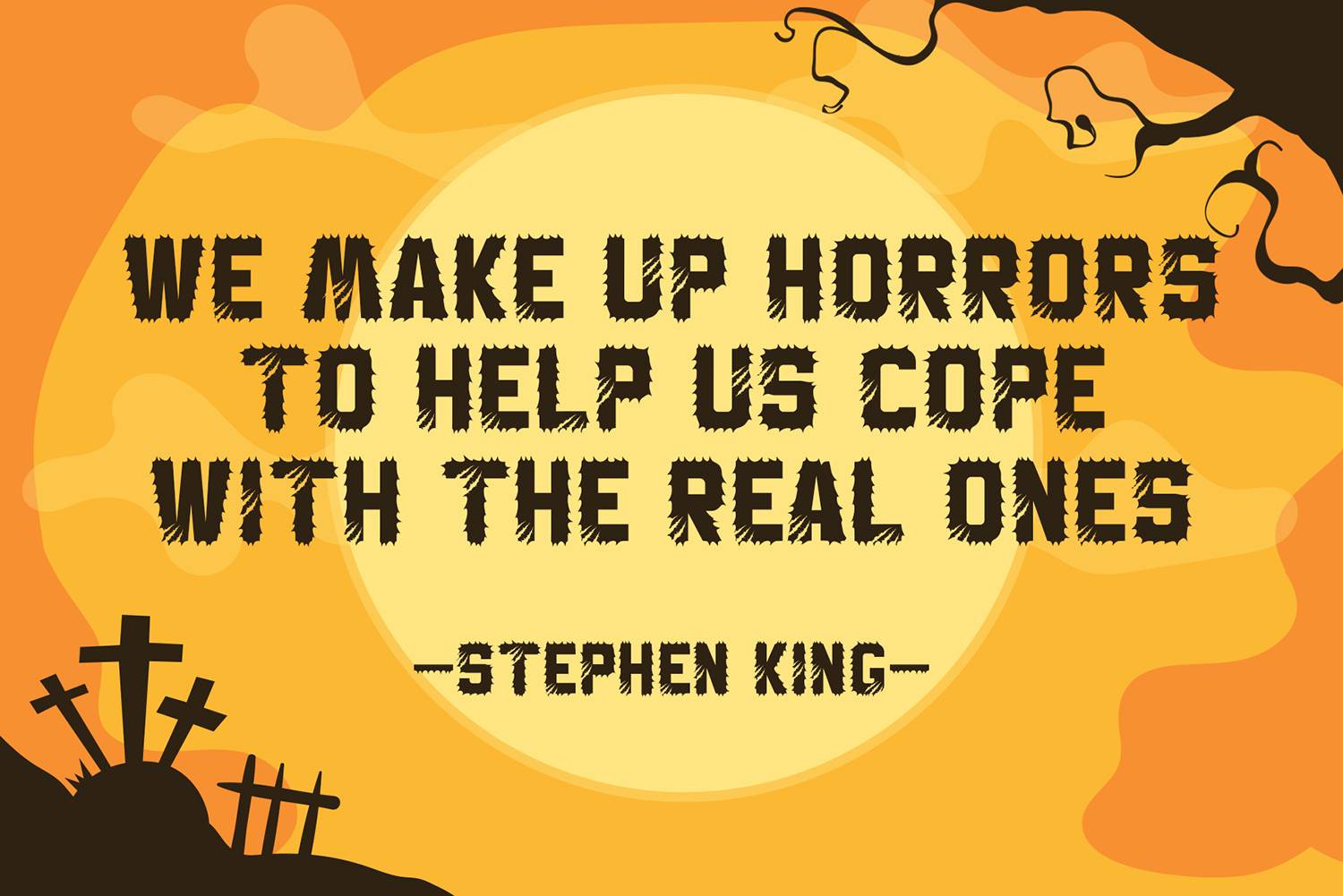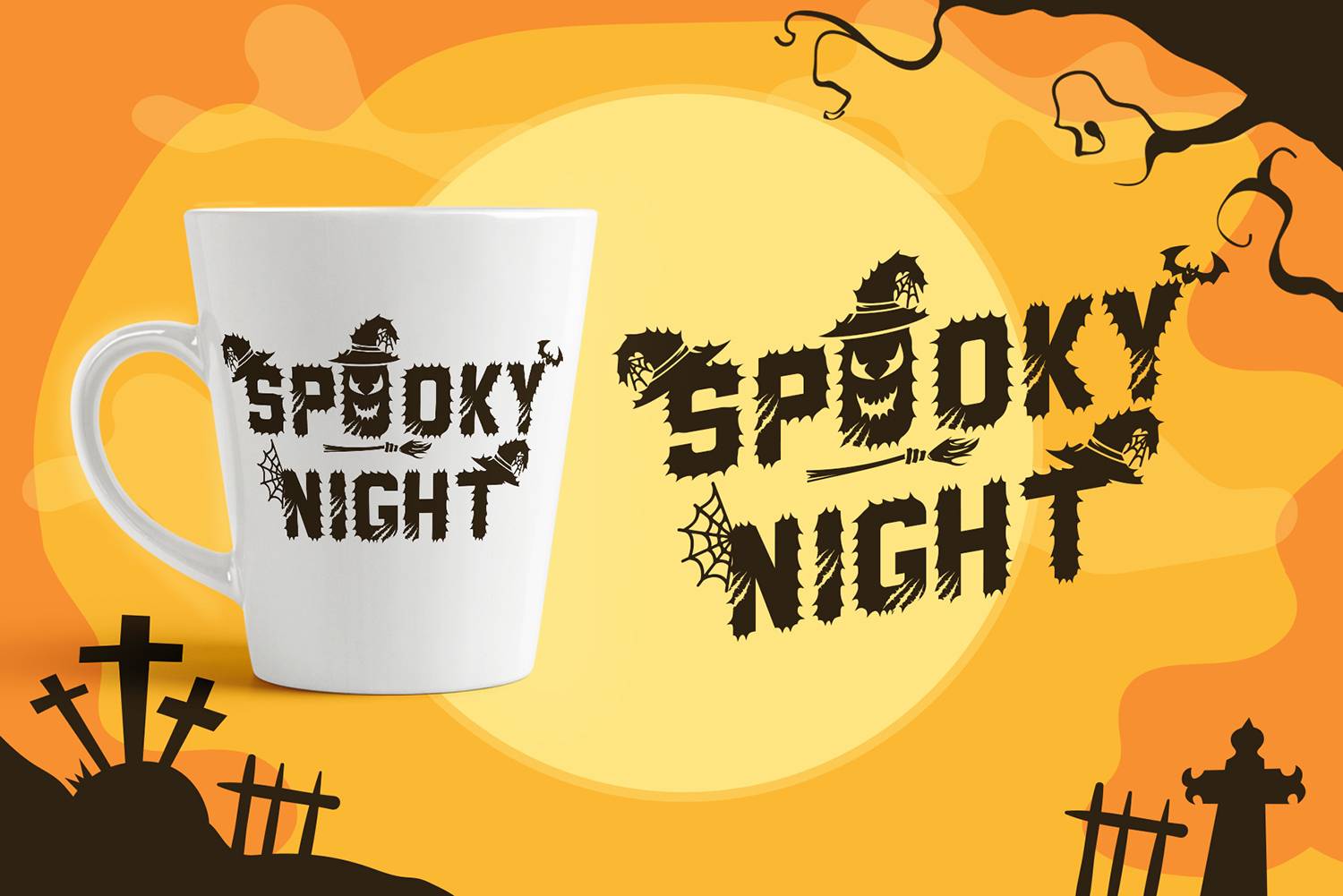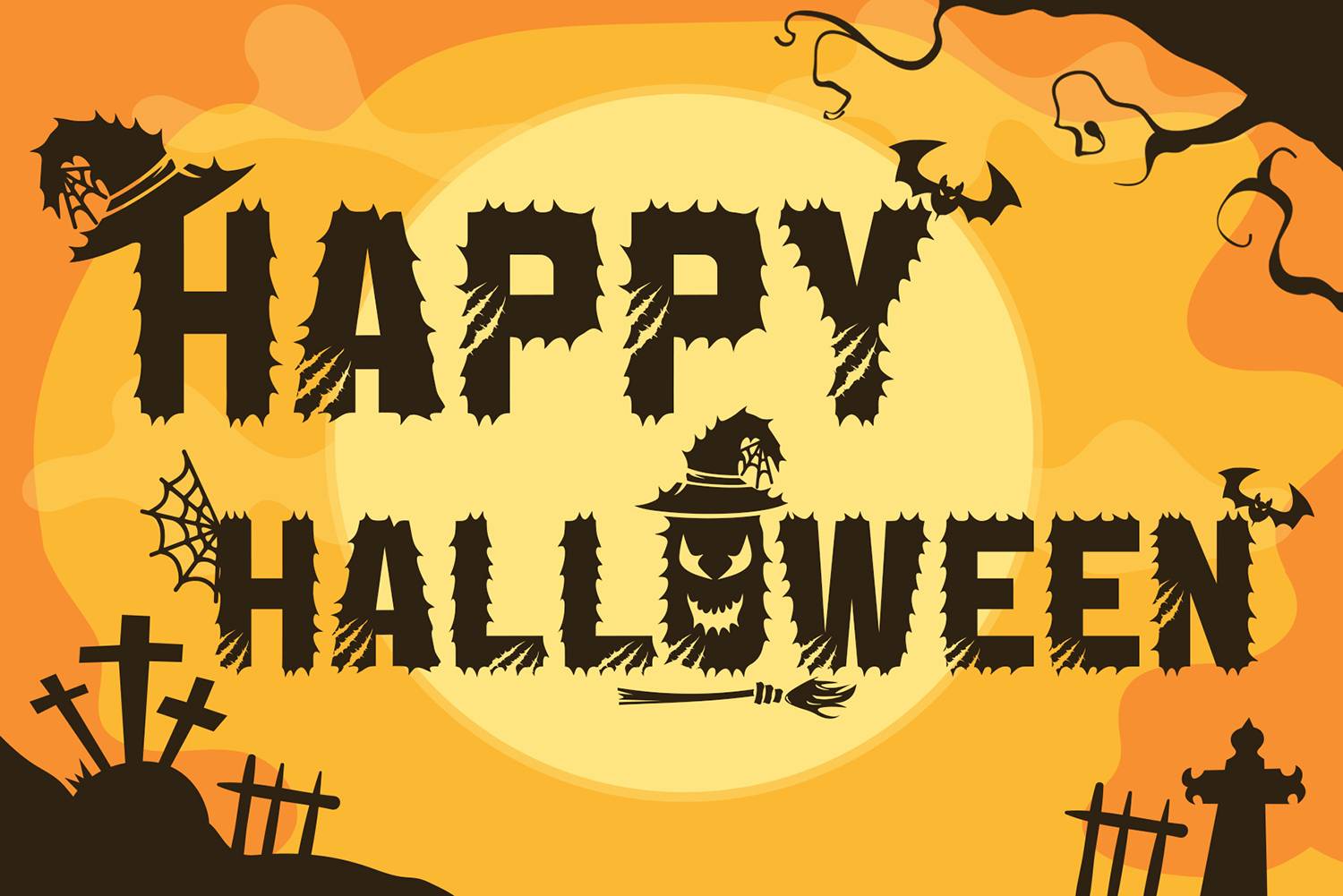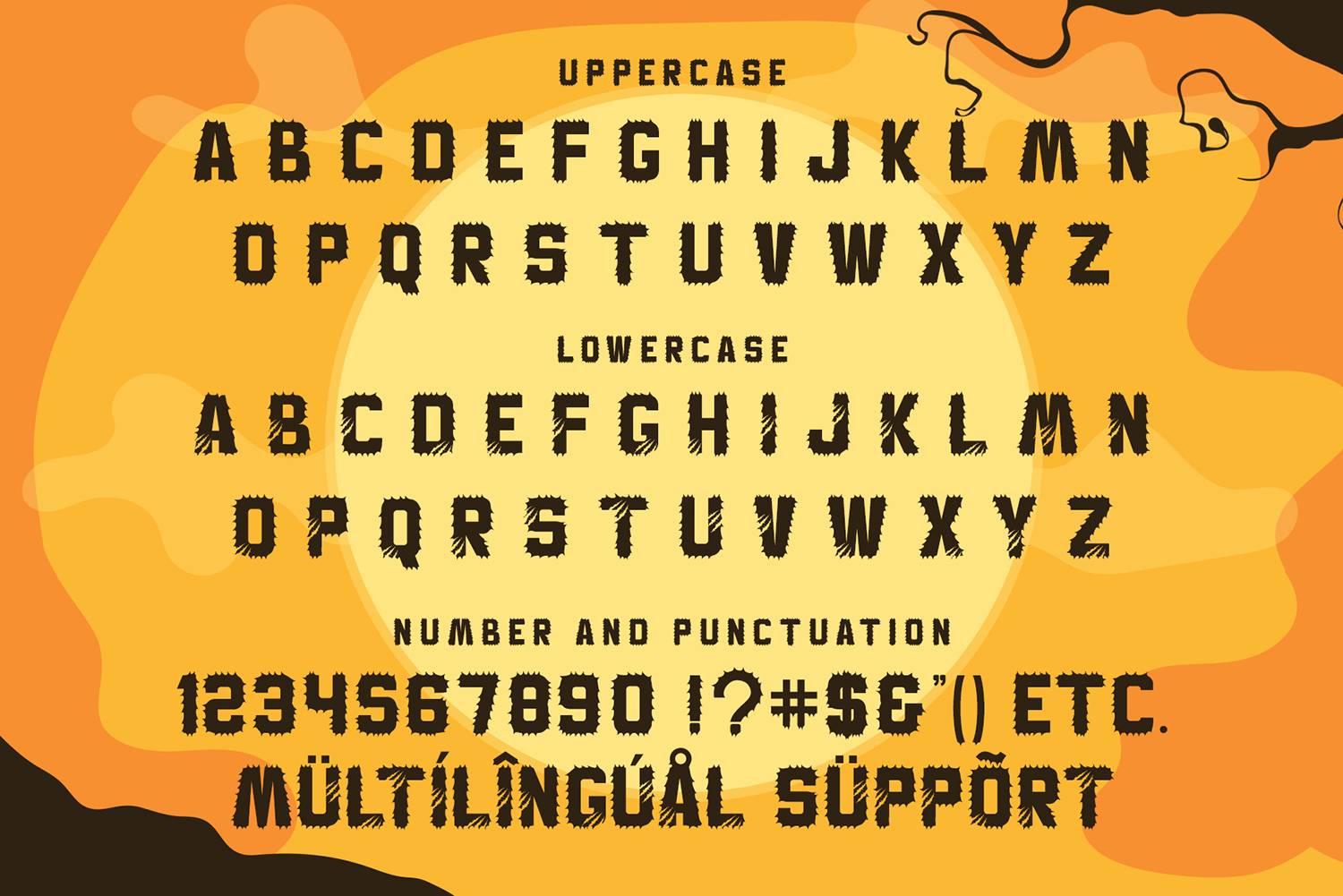
Hallo Witch is a bold, all-caps display font with jagged, irregular edges that give it a spooky, Halloween-inspired vibe. Its condensed letterforms and high contrast between thick strokes and sharp, rough contours make it perfect for eye-catching headlines, posters, and themed event branding, where a playful yet eerie atmosphere is desired. This font works best in decorative and seasonal designs that need a strong, memorable personality.
Hallo Witch Font
About Hallo Witch Font